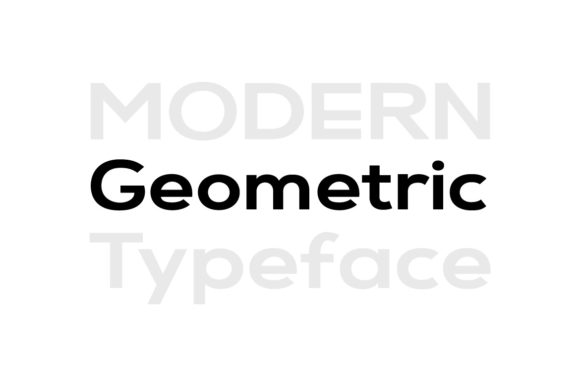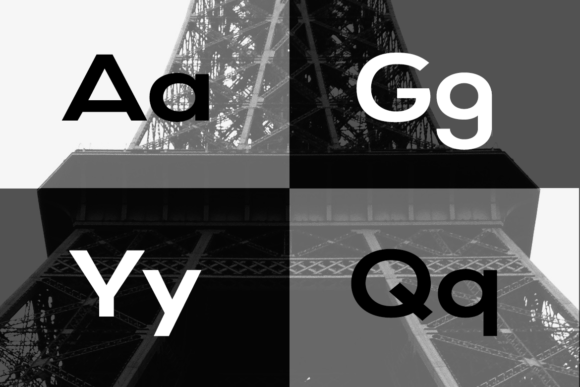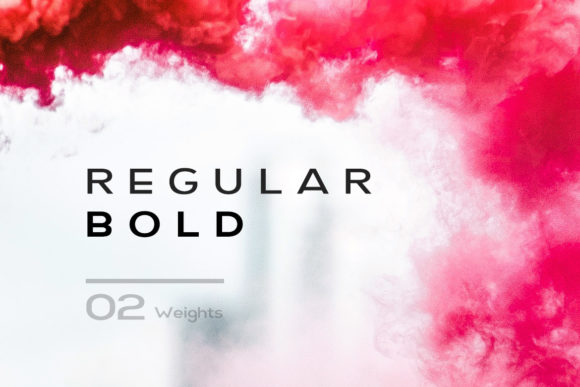
Introduction to Siegner Font
The Siegner is a modern sans serif typeface, inspired from renowned Swiss typefaces with an added geometric flavor at it’s perfection.
It’s perfect to create nicely looking headlines (adding some extra letter spacing will make it look amazing) as well as any type of web / print content that looks fresh and modern .